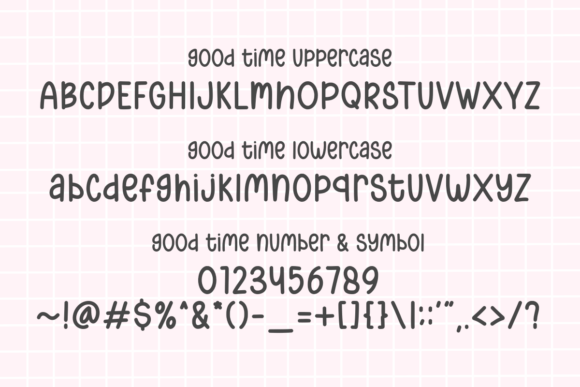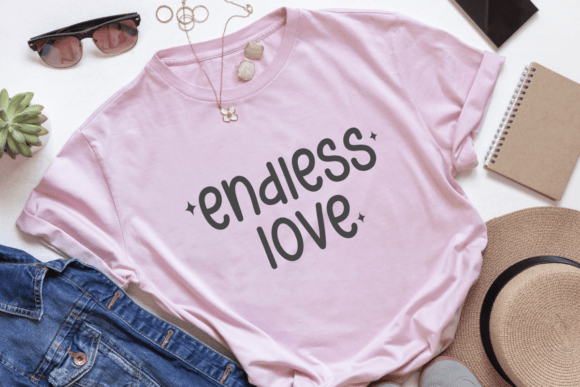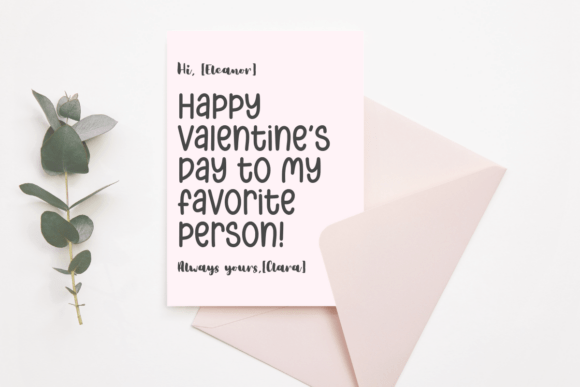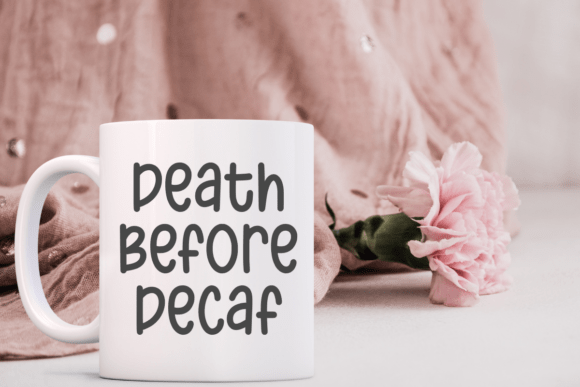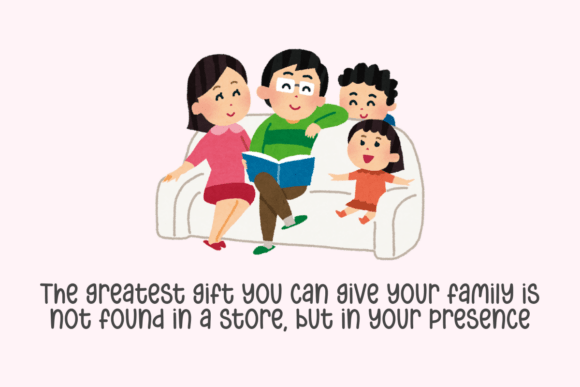
Introducing Good Time Font: The Playful and Aesthetic Handwriting Display Font
Are you looking for a font that can add a touch of joy and personal warmth to your creative projects? Look no further than Good Time Font, a playful and aesthetic handwriting display font designed to bring a sense of fun and friendliness to your designs. In this article, we’ll explore the features and benefits of Good Time Font, and why it’s the perfect choice for designers and crafters looking for a versatile and charming font.
Clean, Bouncy Lines and Charming Monolinear Weight
Good Time Font features clean, bouncy lines and a charming monolinear weight that radiates a friendly yet modern vibe. The font’s design is characterized by its smooth, flowing lines and subtle variations in line width, giving it a handmade and organic feel. This makes it perfect for creative projects that require a touch of personality and whimsy, such as playful branding, creative journals, and whimsical quote designs.
Perfect for Playful Branding and Creative Projects
Good Time Font is highly recommended for designers and crafters looking for a font that can add a touch of playfulness and personality to their projects. Whether you’re designing a logo, creating a social media graphic, or crafting a handmade journal, Good Time Font is the perfect choice. Its friendly and approachable vibe makes it ideal for brands and businesses that want to convey a sense of fun and approachability.
Ideal for Craft-Based Businesses
Good Time Font is particularly well-suited for craft-based businesses that require a font with a handmade and authentic feel. If you’re a crafter or maker who creates custom acrylic keychains, vinyl stickers, or nursery decor, Good Time Font is a great choice. Its charming and playful design will add a touch of personality to your products and help them stand out from the crowd.
Versatile and Easy to Use
Good Time Font is a versatile font that can be used in a variety of creative projects. Its clean and simple design makes it easy to read and use, even at small sizes. The font is also highly legible, making it perfect for use in quotes, posters, and other display materials.
So why choose Good Time Font for your creative projects? Here are just a few benefits for designers and crafters:
- Add a touch of personality: Good Time Font is designed to bring a sense of joy and personal warmth to your designs. Its playful and charming design will add a touch of personality to your projects and help them stand out.
- Versatile and easy to use: Good Time Font is a versatile font that can be used in a variety of creative projects. Its clean and simple design makes it easy to read and use, even at small sizes.
- Perfect for handmade and craft-based businesses: Good Time Font is ideal for craft-based businesses that require a font with a handmade and authentic feel. Its charming and playful design will add a touch of personality to your products and help them stand out.
In conclusion, Good Time Font is a playful and aesthetic handwriting display font that’s perfect for designers and crafters looking for a font that can add a touch of joy and personality to their creative projects. Its clean, bouncy lines and charming monolinear weight make it ideal for playful branding, creative journals, and whimsical quote designs. Whether you’re a designer, crafter, or maker, Good Time Font is a great choice for anyone looking for a versatile and charming font.